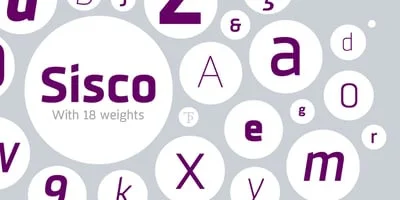
Sisco Font
Sisco Font is ideal for technology startup branding, cybersecurity company materials, network infrastructure presentations, IT consulting firm logos, digital transformation campaigns, tech conference signage, software development interfaces, and modern enterprise communications.
This font is exciting because it embodies the precision and reliability of enterprise technology with clean, systematic letterforms that convey technical expertise and digital innovation excellence. The Sisco Font captures the essence of network connectivity and technological infrastructure, transforming ordinary text into authoritative statements that resonate with IT professionals and technology decision-makers who value performance, security, and scalable solutions.
The Sisco Font family includes technology-focused variations such as Regular, Bold, Light, Medium, Italic, Network, Condensed, and Extended versions, providing tech industry designers with comprehensive tools to create professional typography that reflects technological competence and enterprise-grade reliability across all IT applications and digital communications.
Connect with technological excellence using Sisco Font that brings enterprise credibility to every technology design project. This professionally engineered typeface combines tech industry aesthetics with contemporary functionality, making it perfect for IT companies, cybersecurity firms, and technology consultants requiring absolute reliability and professional authority. The font's systematic character design ensures your message conveys technical expertise while maintaining excellent readability across all technology applications. Whether you're developing IT service branding, creating technology presentations, or designing materials for enterprise clients, Sisco Font delivers the professional typography that speaks to technology professionals seeking reliable solutions. Its versatile design works effectively across digital and print media while preserving the technical precision that makes technology communications feel genuinely authoritative and worthy of the trust that enterprise technology decisions require in competitive markets where reliability, security, and performance are absolutely essential for business success.